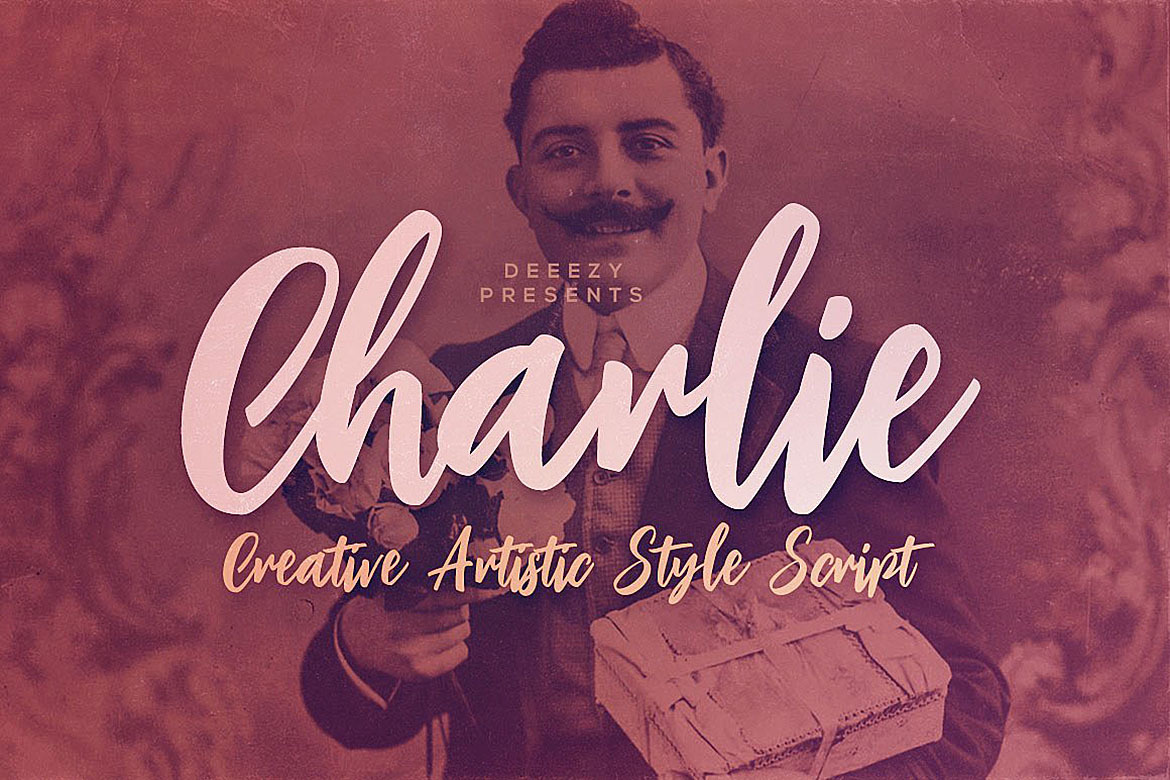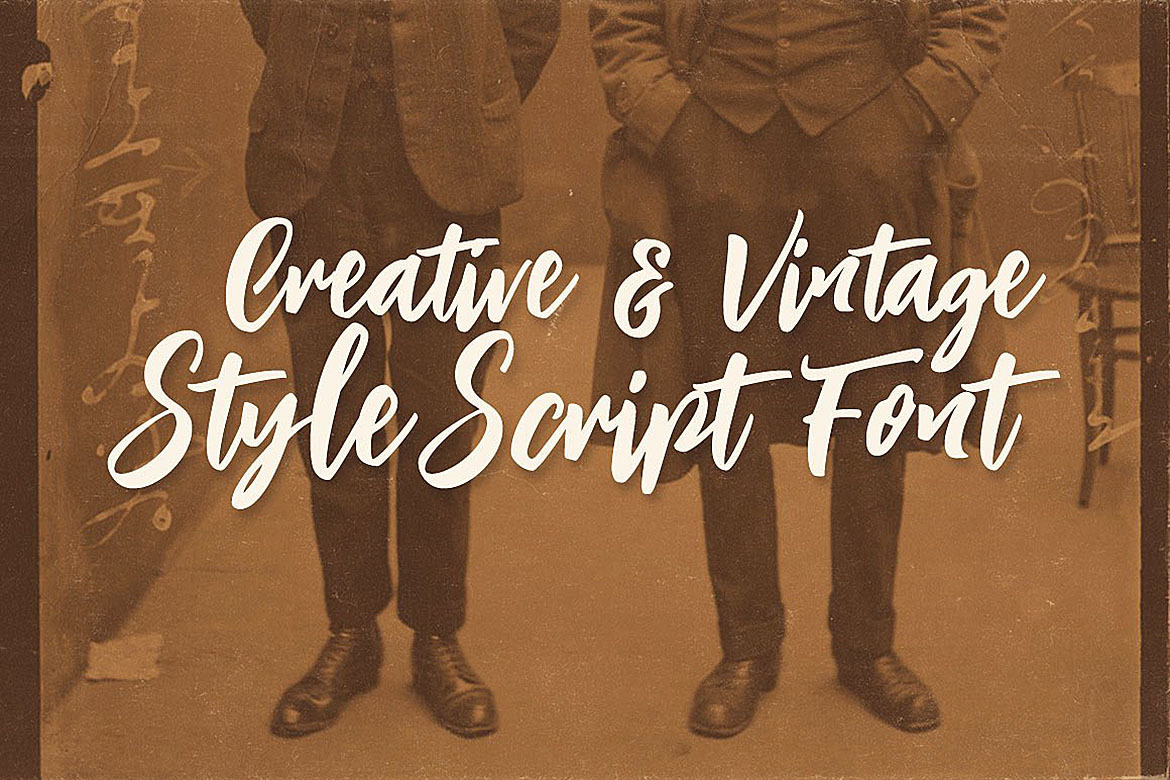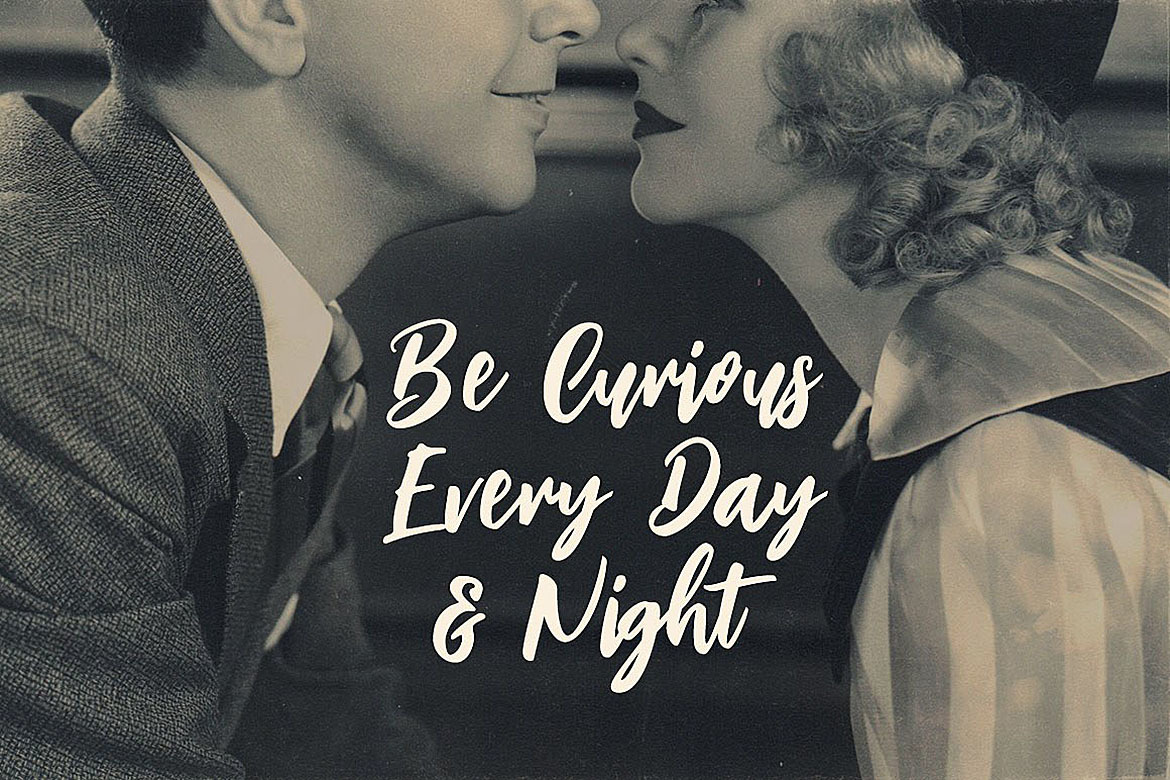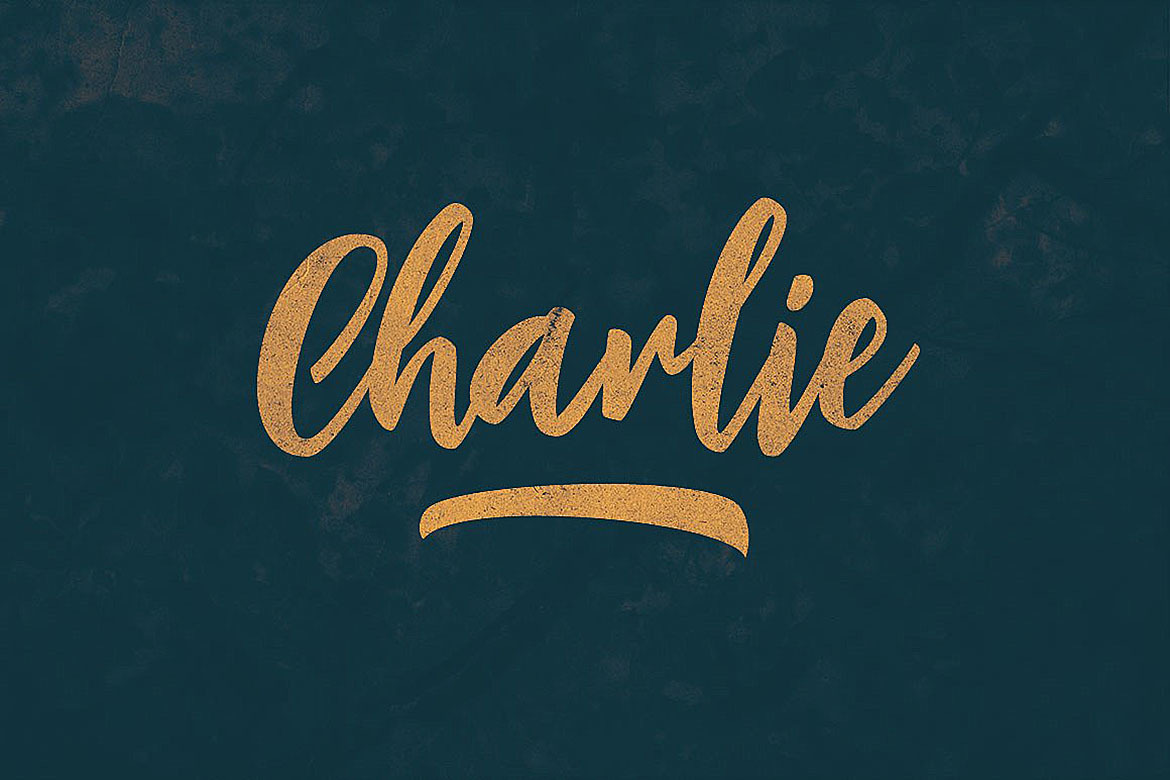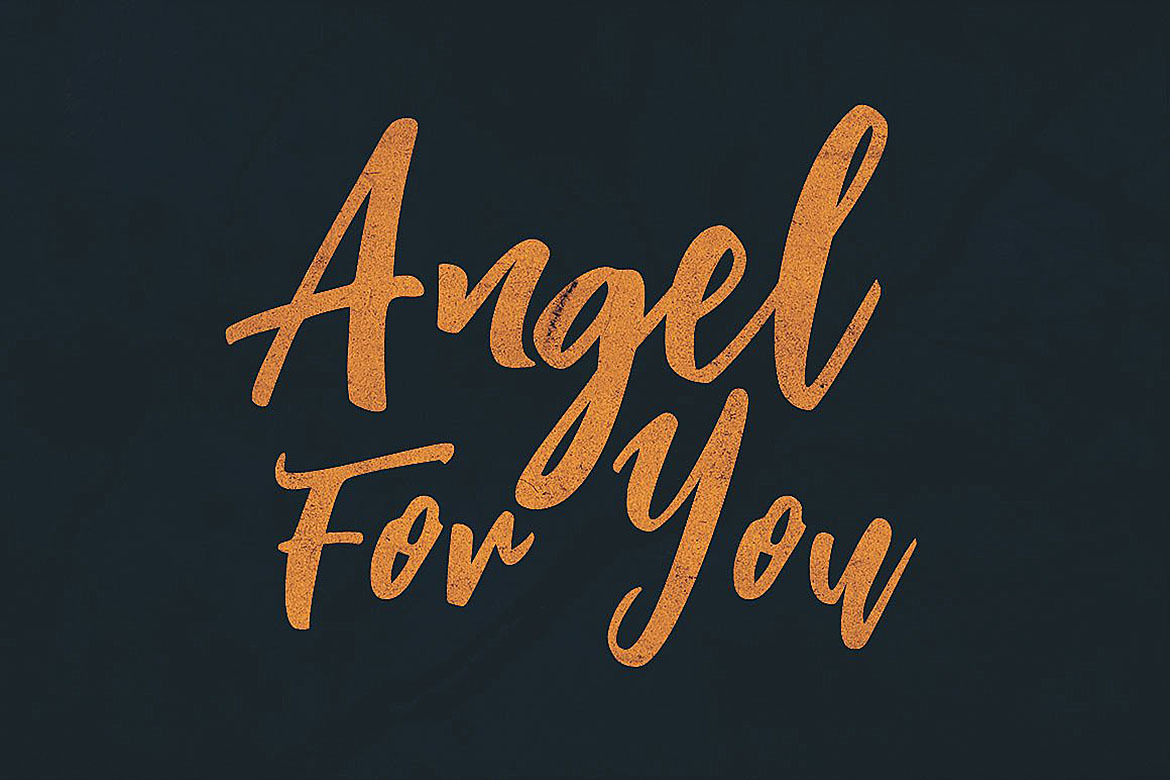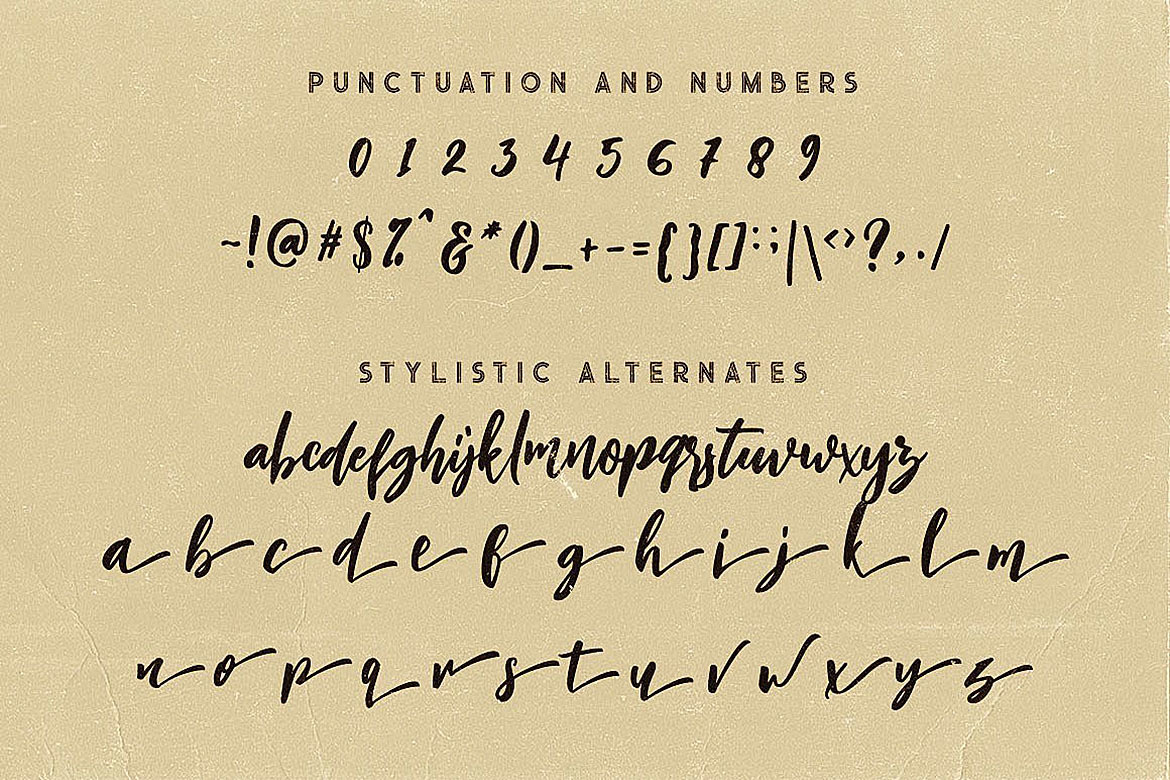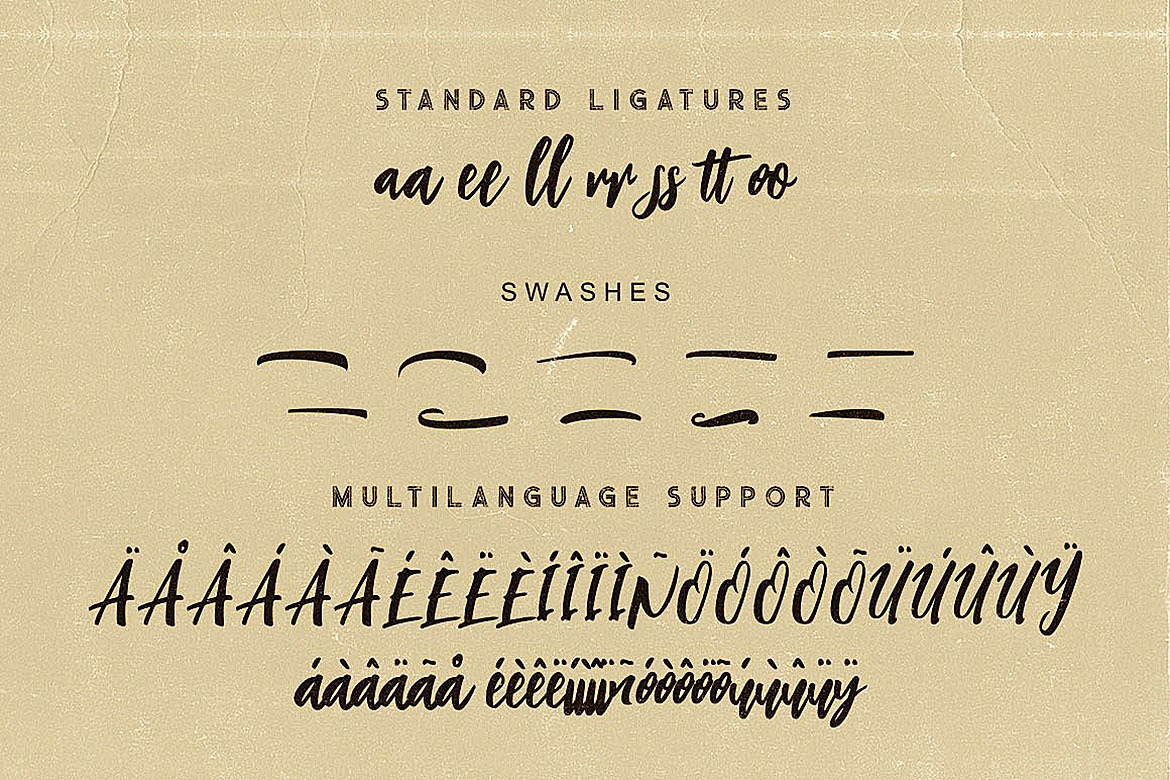
Charlie Script Font
Artistic and handwritten or dancing baseline style script font for your new projects. With multi language support and lot of stylistic alternates & swashes. Enjoy ;)